27 Best Humanist Fonts to Download Now!
If you're looking for a legible, timeless font, humanist typefaces might be the perfect choice. In this article, we'll take a look at humanist typeface characteristics, as well as a humanist typeface list for inspiration and addition to your font library. So, if you love fonts, look no further—let's dig into some humanist font design.
What Is a Humanist Typeface?
When we discuss humanist typefaces, we're talking about type classification. This is a means of visually describing and analyzing different typefaces, based on their characteristics.
So, what is a humanist typeface? Defining humanist typeface characteristics is an interesting task, because you can find information out there on both humanist sans serif fonts and humanist serif typefaces. What's the deal?
The information out there may vary, depending on the source. Old style serifs are also sometimes referred to as humanist. In this case, we're talking about a humanist old style typeface like Jensen or Goudy Old Style. While we'll focus more on sans serifs than on humanist old style typeface design in this article, it's still interesting to note the similarities—that calligraphic quality.
Old style serif typefaces are often associated with the word "humanist" for their more natural, calligraphy-like quality. You may also see old style type called the Venetians, and some will classify humanist serifs and old styles separately, both "at the beginning" of the serif timeline. We won't focus on old style or serifs in this article, but be aware of the association.
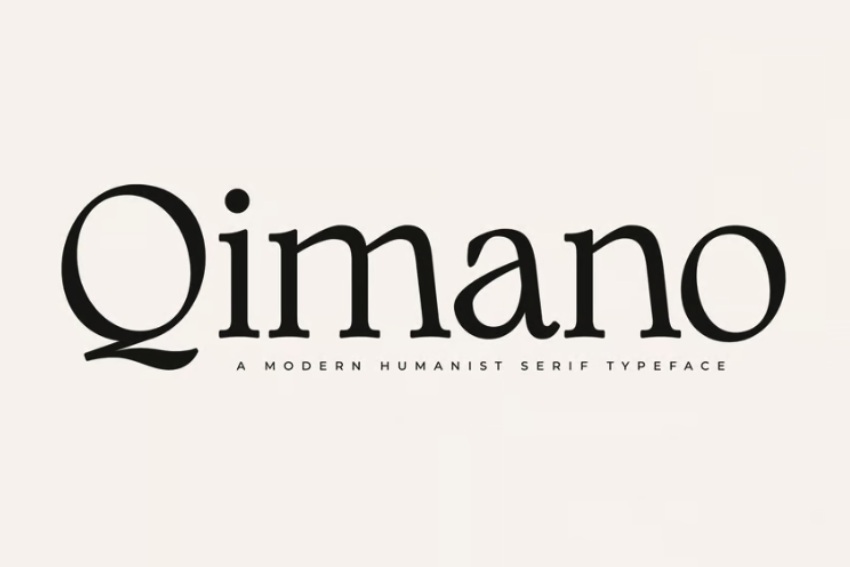
Instead, let's turn to humanist sans serif type. Humanist fonts are considered to be highly legible, with less of a stiff aesthetic and more of an organic feel. A popular humanist typeface list would include well-known fonts such as Gill Sans, Myriad, Open Sans, Verdana, and Optima.
When we think of sans serifs, we might automatically think of geometric type or something quite stiff and mechanical. Humanist sans serif type, on the other hand, feel more natural, with more organic strokes than other sans serif type. In fact, it can often feel as if these sans serifs have borrowed this aesthetic from serif genres.
That's the beauty of type design—you can (and often should) borrow from other aesthetics. Consider type classification to be a means of understanding and identifying characteristics, rather than rigid rules to follow. Being aware of these characteristics can help you decide which font might be best to turn to for your project.
You may look at some humanist sans serif type and think: I don't particularly see anything calligraphic here. It's still a sans serif! But look closely at the way the strokes in the letters curve and connect. It's not about being highly graphic or decorative, as we might see in actual calligraphy—but rather that the letters have a more natural stroke, as opposed to the colder, stiffer consistency we often see in other sans serif type.
These fonts are a wonderful choice for body copy, as they tend to have high legibility and readability. That's not to say they can't work in other ways, too—a well-designed humanist sans serif can prove to be a very versatile addition to your font library. Grab a font family with varied weights, and a well-designed humanist font can carry its own.
Let's take a look at some beautifully designed sans serif fonts—some of them with very direct and highly visible humanist inspiration, and others with humanist inspiration mixed with other genres. Feel free to add these lovely type designs to your collection today, or sit back and enjoy the type inspiration.